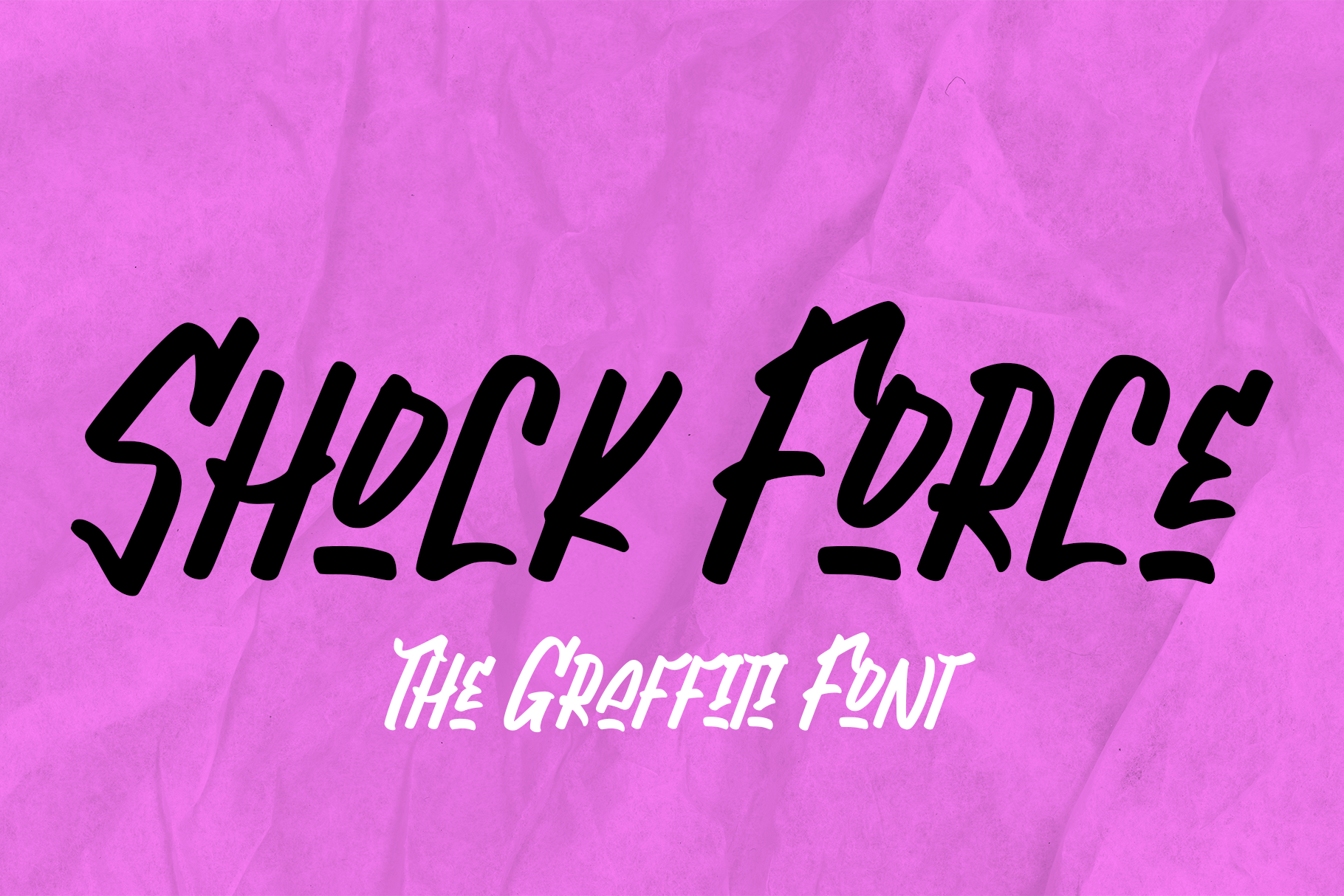
Shock Force - Graffiti Font
Shock Force is a bold, graffiti-inspired script font that embodies modern urban energy. With its edgy, dynamic strokes and street-style appeal, this font is perfect for logos, branding, posters, and designs that demand a fresh, contemporary look. Shock Force brings a raw, artistic vibe to any project, making it ideal for capturing the essence of urban culture. Equipped with ligature features and multilingual support, this font offers flexibility and versatility, allowing you to create striking, impactful visuals with a rebellious spirit.